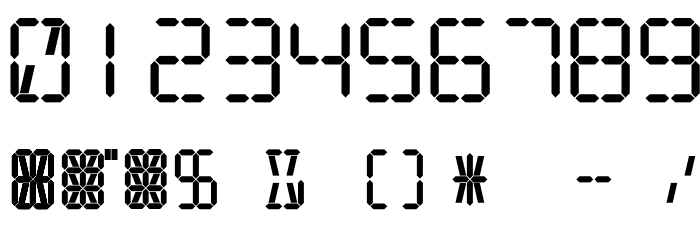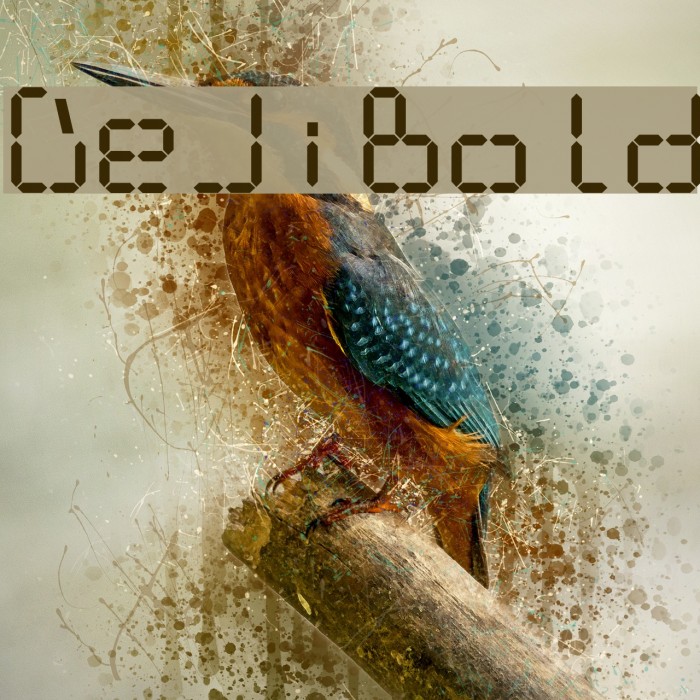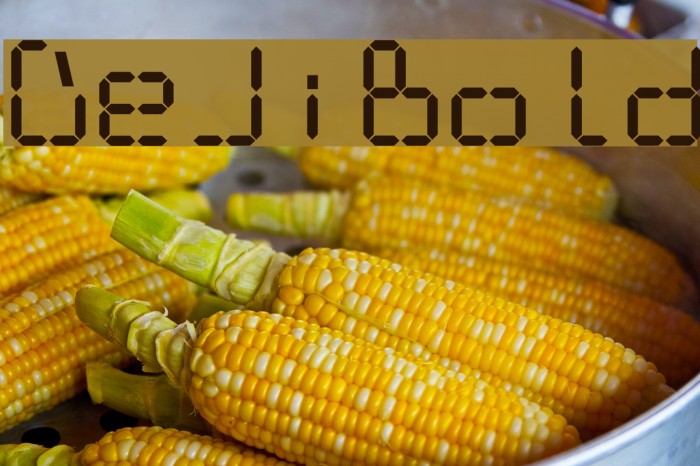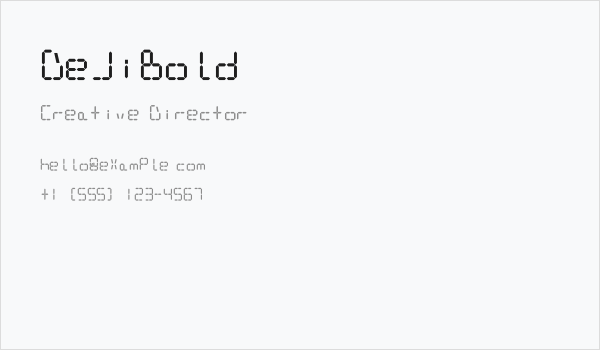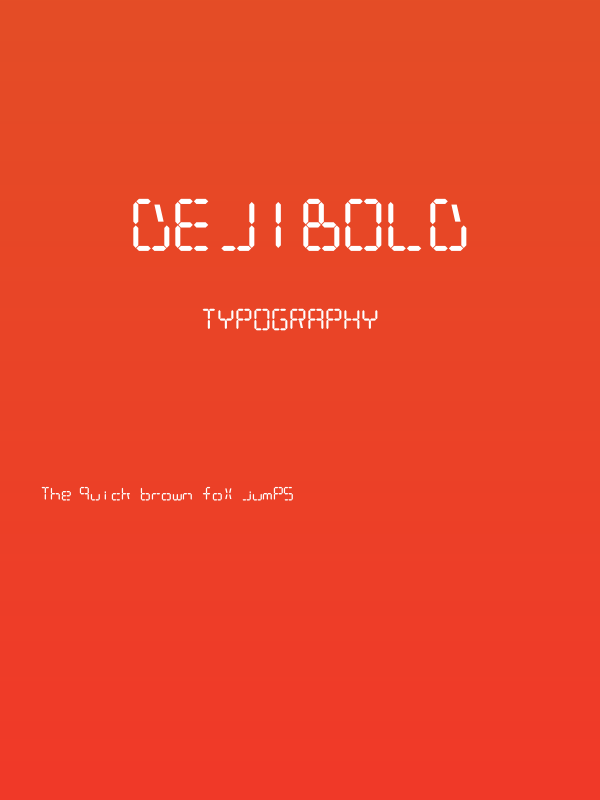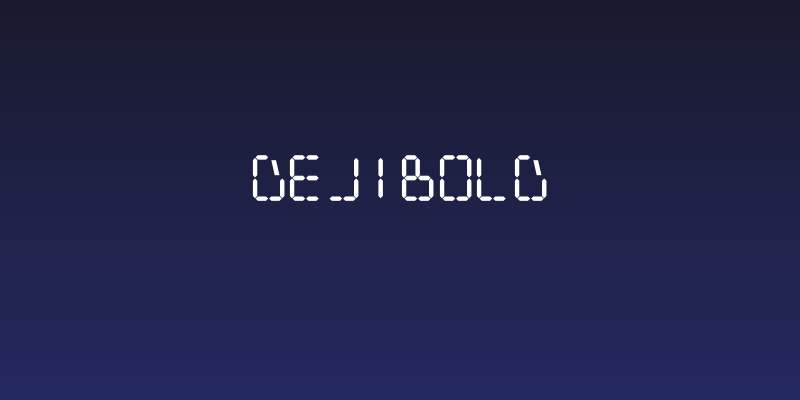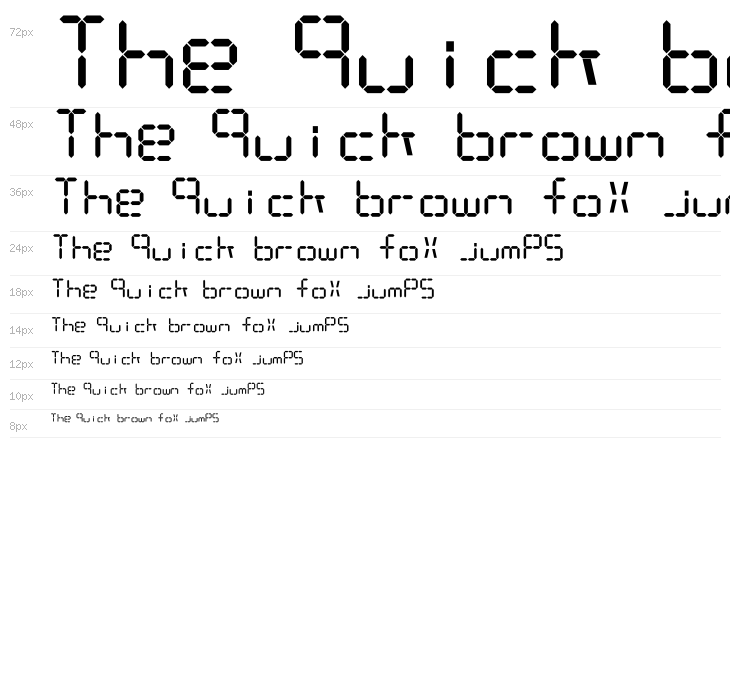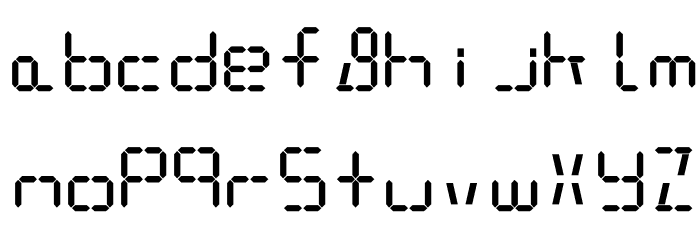
DeJiBold Font
DeJiBold Description
This font features a distinctive digital style reminiscent of LED or LCD displays. Each character is constructed using a series of segmented lines, creating a geometric and technical appearance. The uppercase and lowercase letters maintain a consistent height, contributing to a uniform and structured look. The numerals and special characters follow the same segmented design, ensuring cohesion across all elements. This font's unique style makes it particularly suitable for projects that require a modern, tech-inspired aesthetic.
| Proposed Projects | Ideal for digital interfaces, tech-themed posters, electronic device branding, and futuristic designs. |